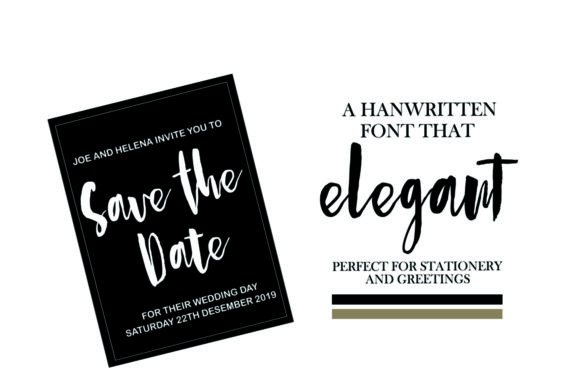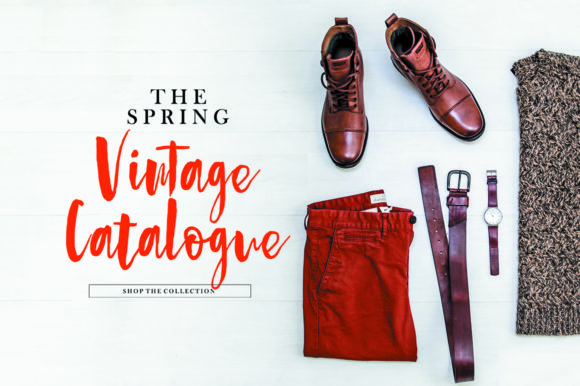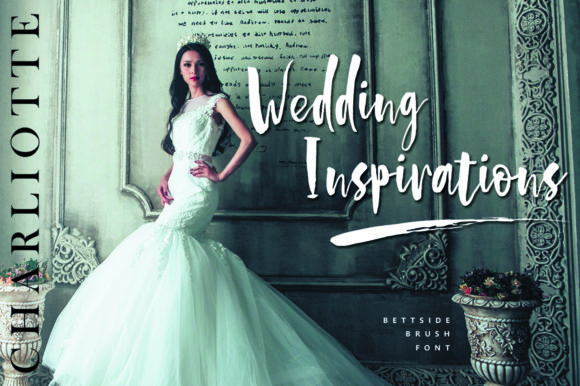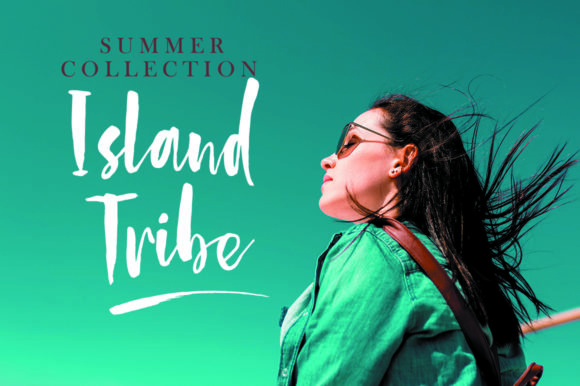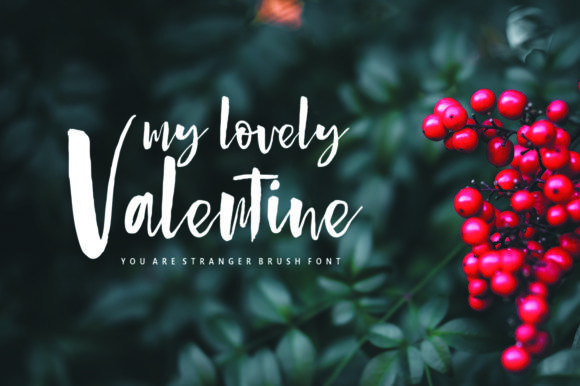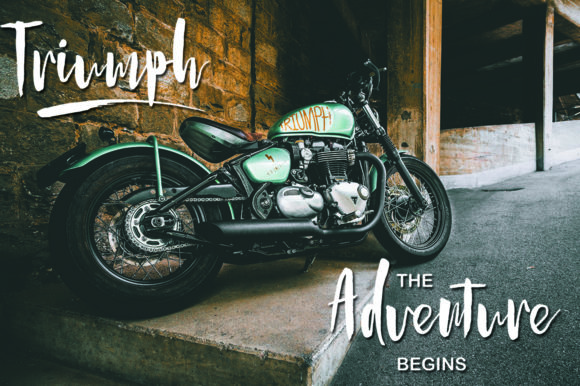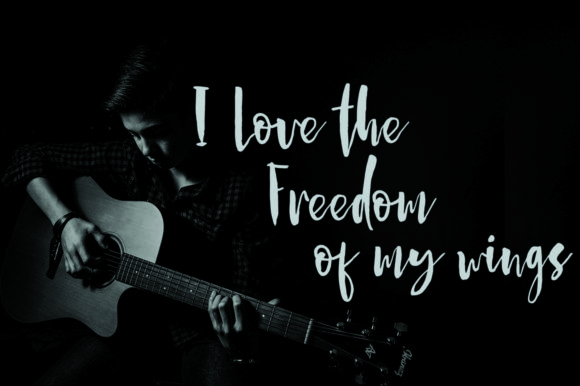
Bettside Font
About Bettside Font
The Bettside Script is a new modern script font with an irregular baseline. It has a trendy and feminine style and is perfect for adding a lovely look to your wedding invitations, thank you cards, quotes, greeting cards, logos, and much more!